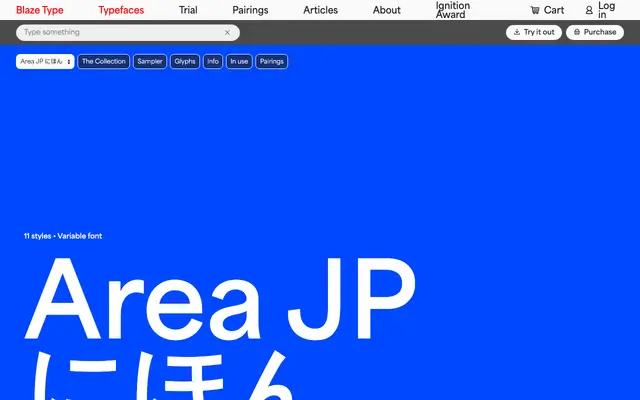
Area JP
Blaze Type · Matthieu Salvaggio, Caio Kondo · 2025
A variable geometric sans covering Latin and Japanese kana scripts, designed to support both horizontal and vertical writing systems across eleven weights.
Designed by Matthieu Salvaggio and Caio Kondo, Area JP extends the Area font family with full Hiragana and Katakana support alongside extended Latin and Greek. The design begins from a modular geometric structure before settling into a quieter neogrotesque register, yielding even colour across diverse scripts. A variable font file spans Hairline to Extrablack, making it well-suited to multilingual publishing, branding and screen work where Japanese and Latin sit together.
Area JP is described explicitly as a variable geometric font family with neogrotesque characteristics; the modular geometric construction with a quiet, neutral tone places it firmly in the geometric-neogrotesque tradition.